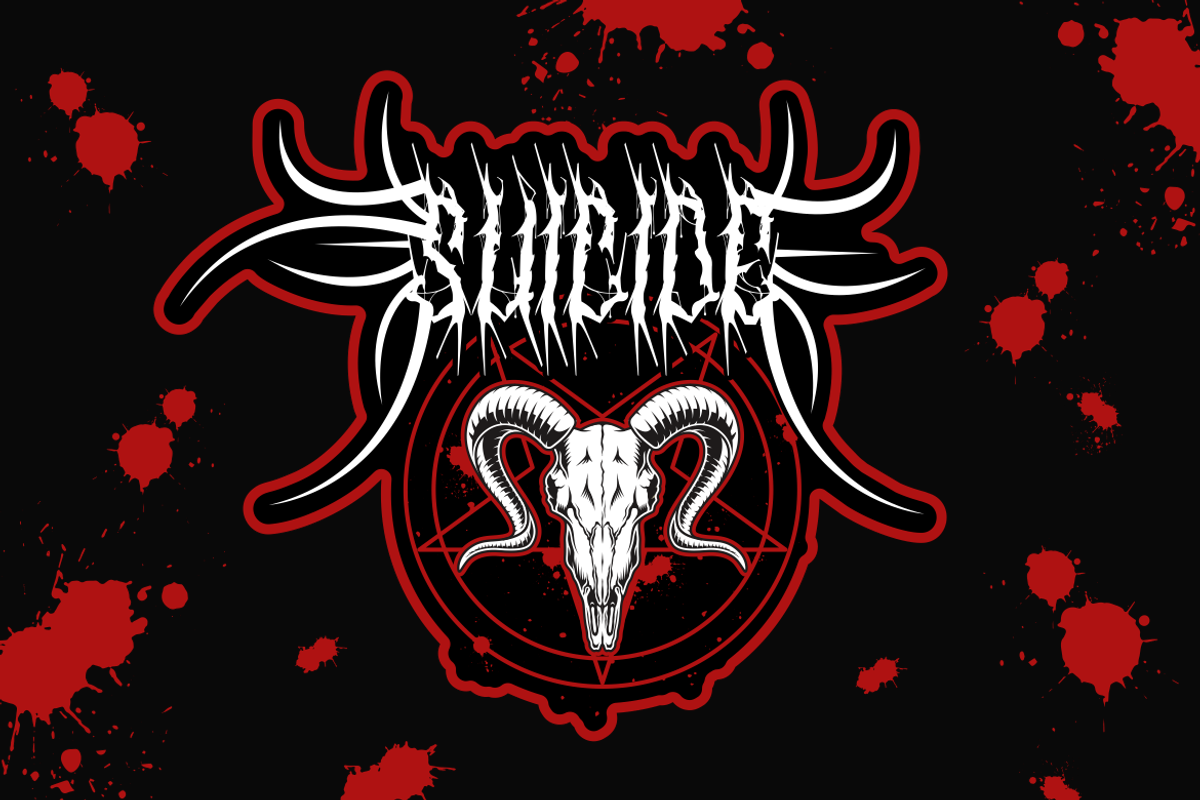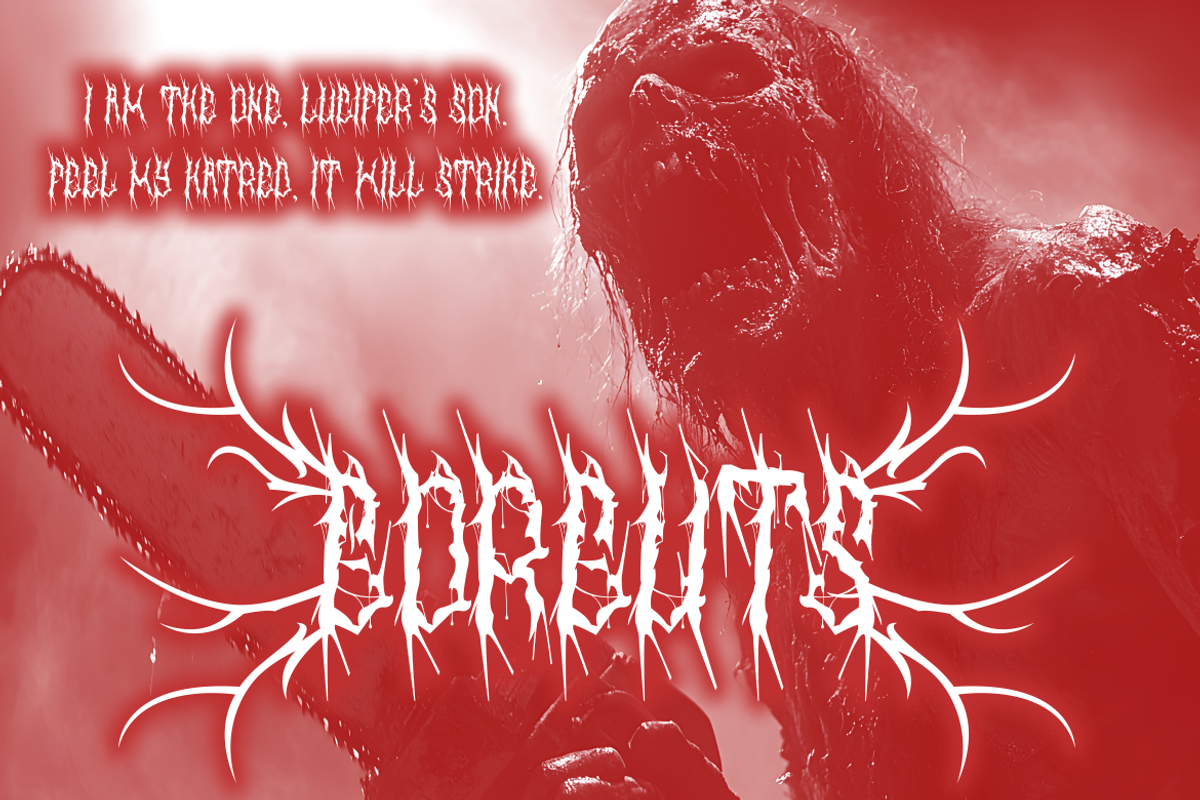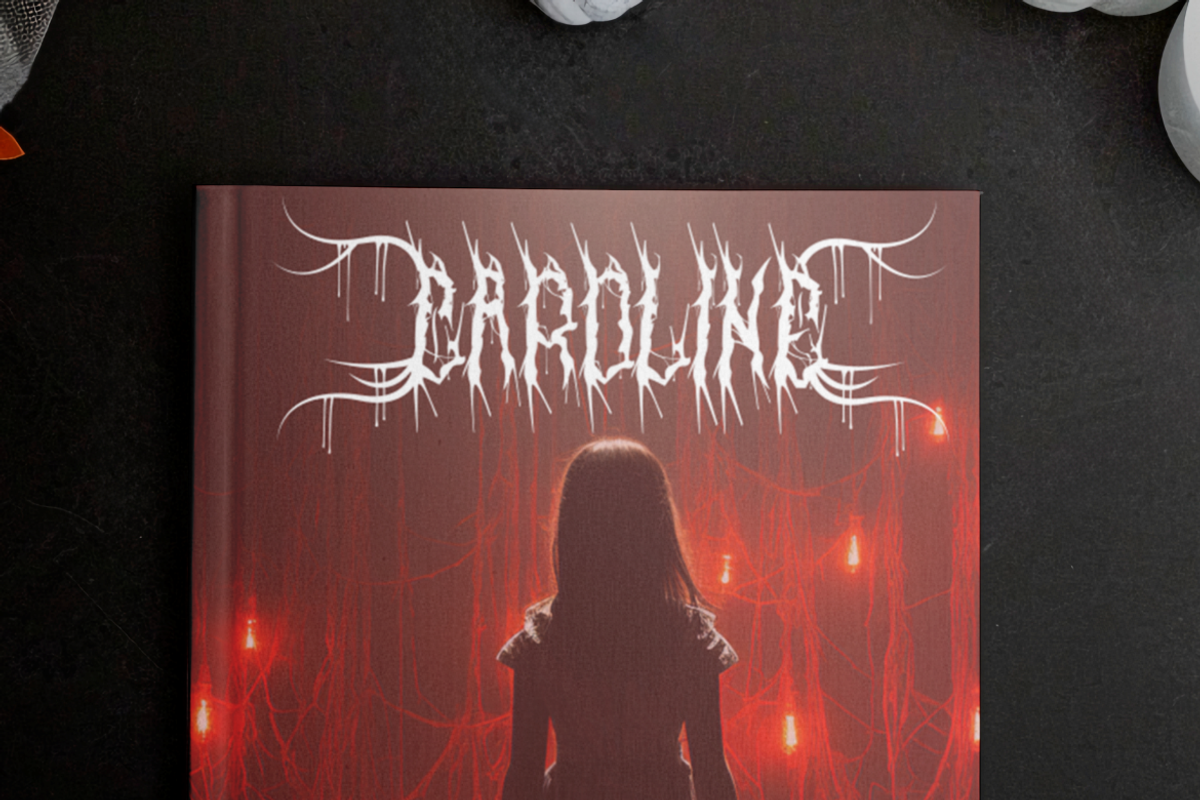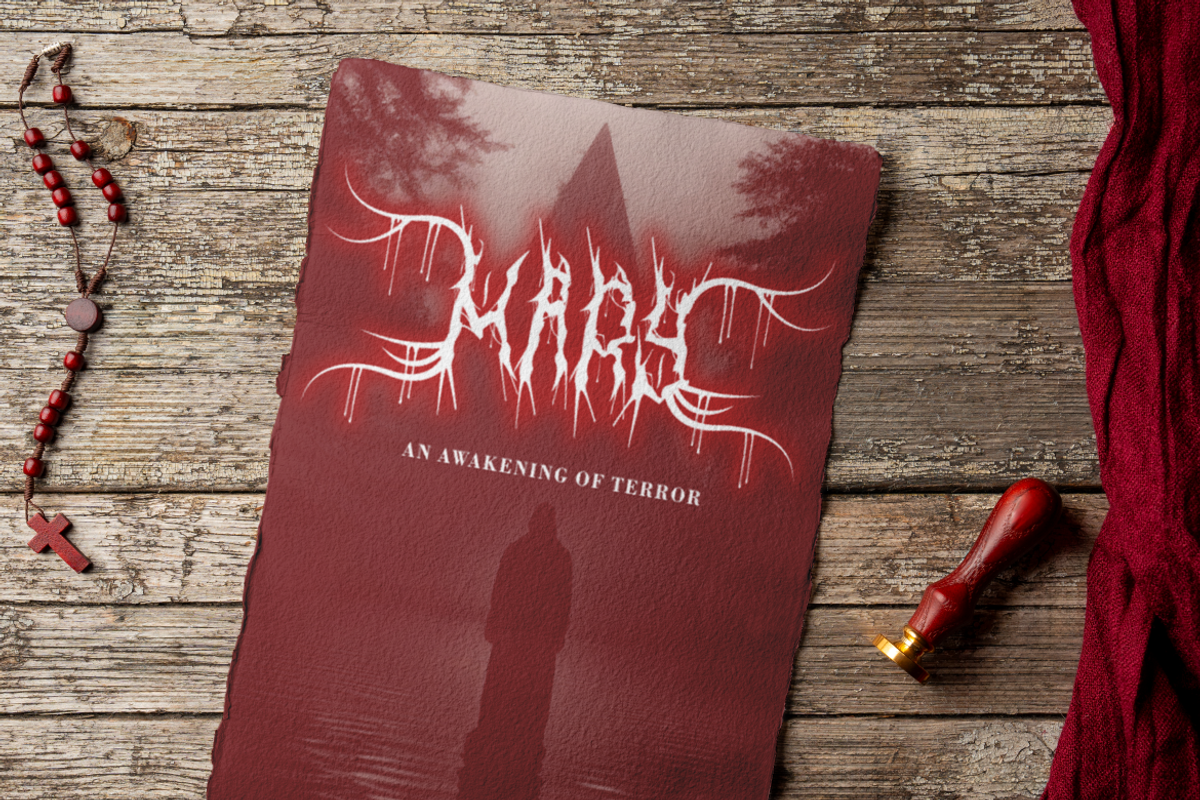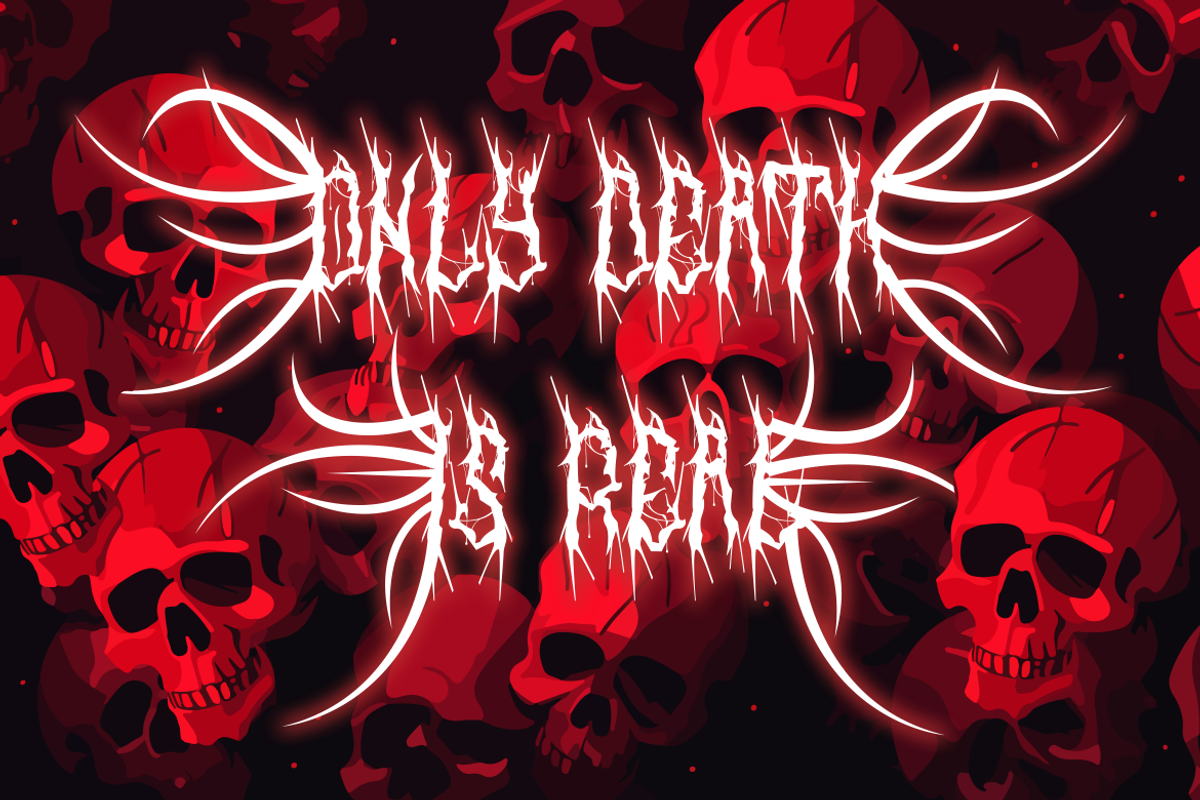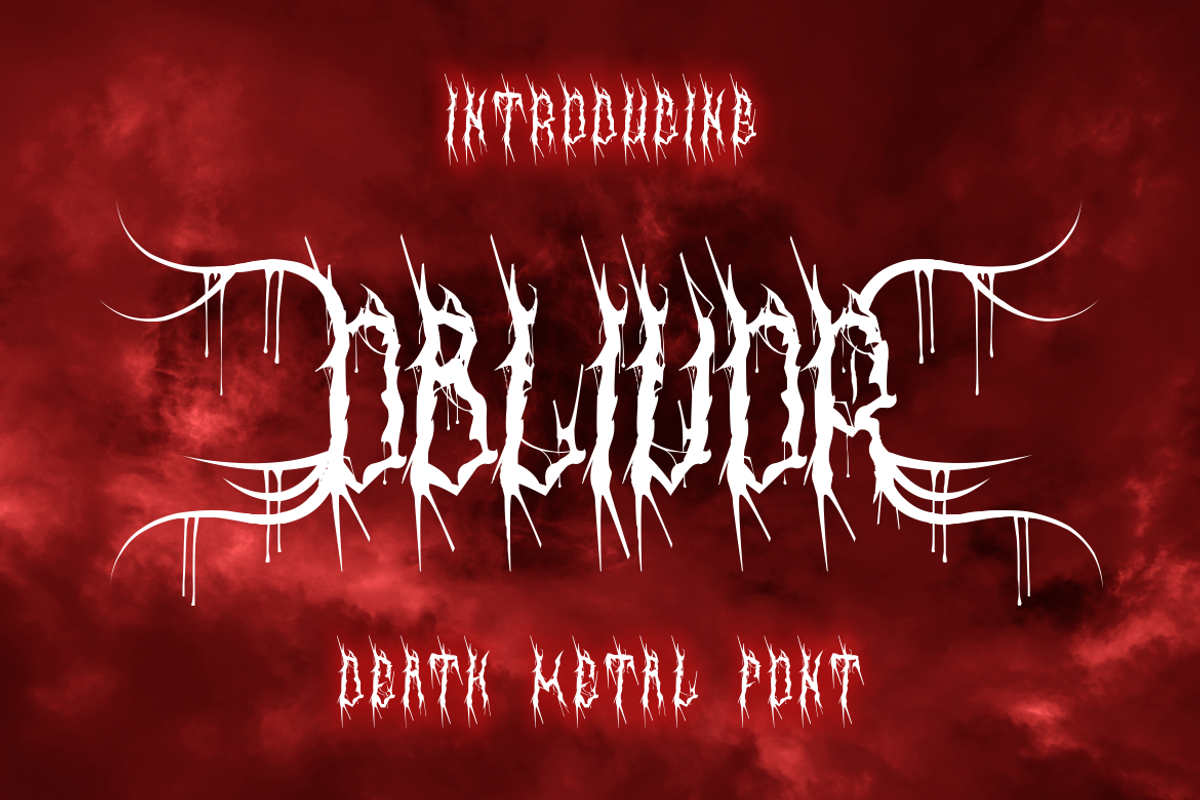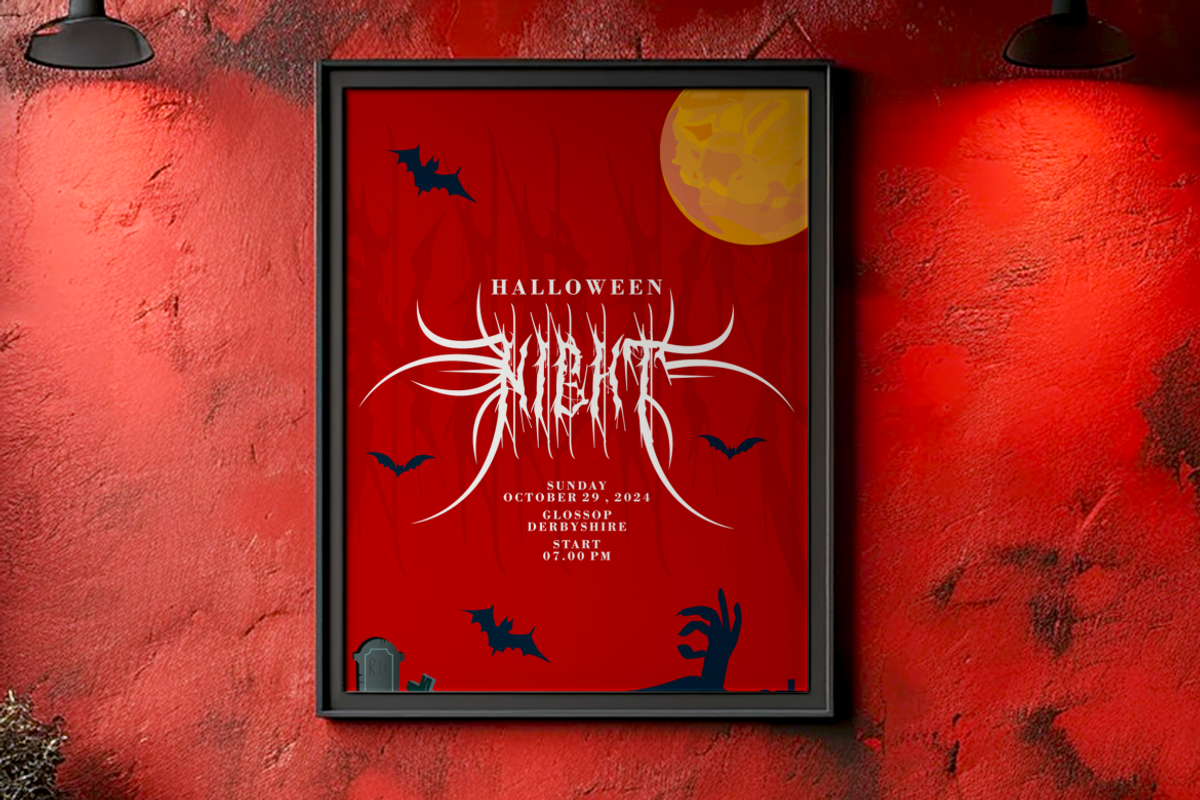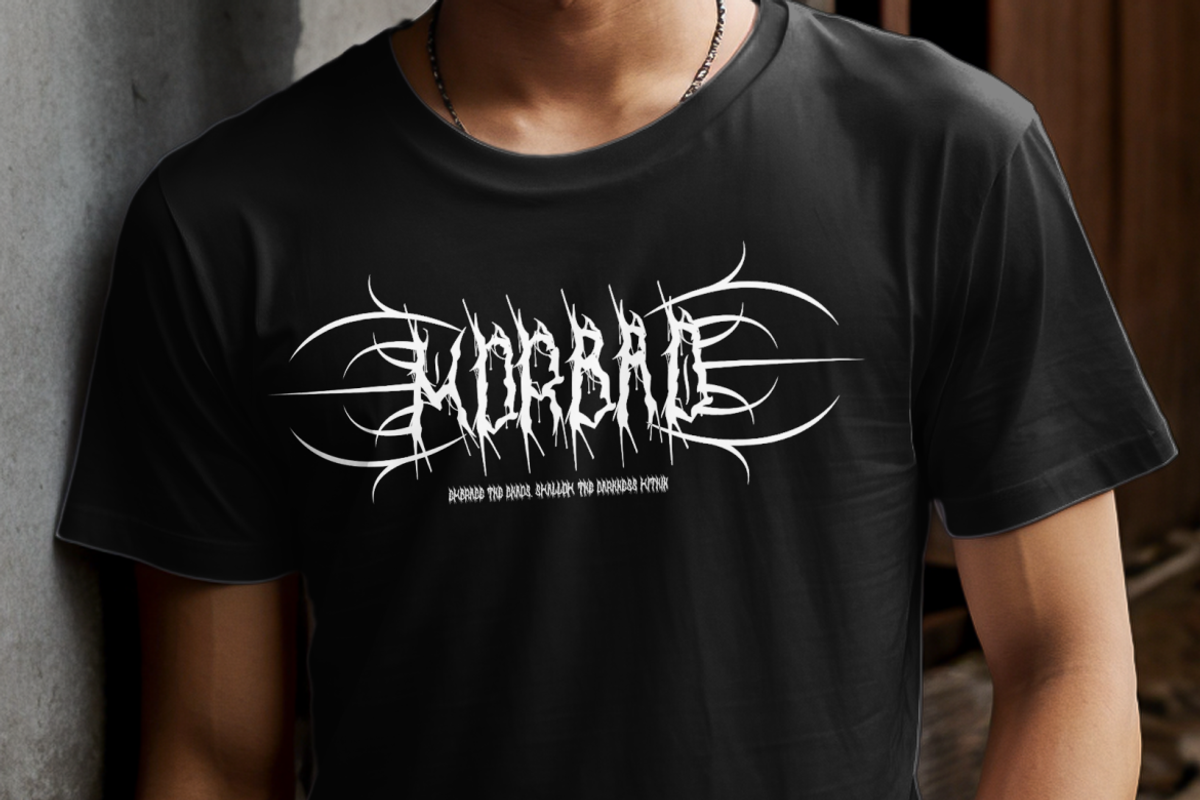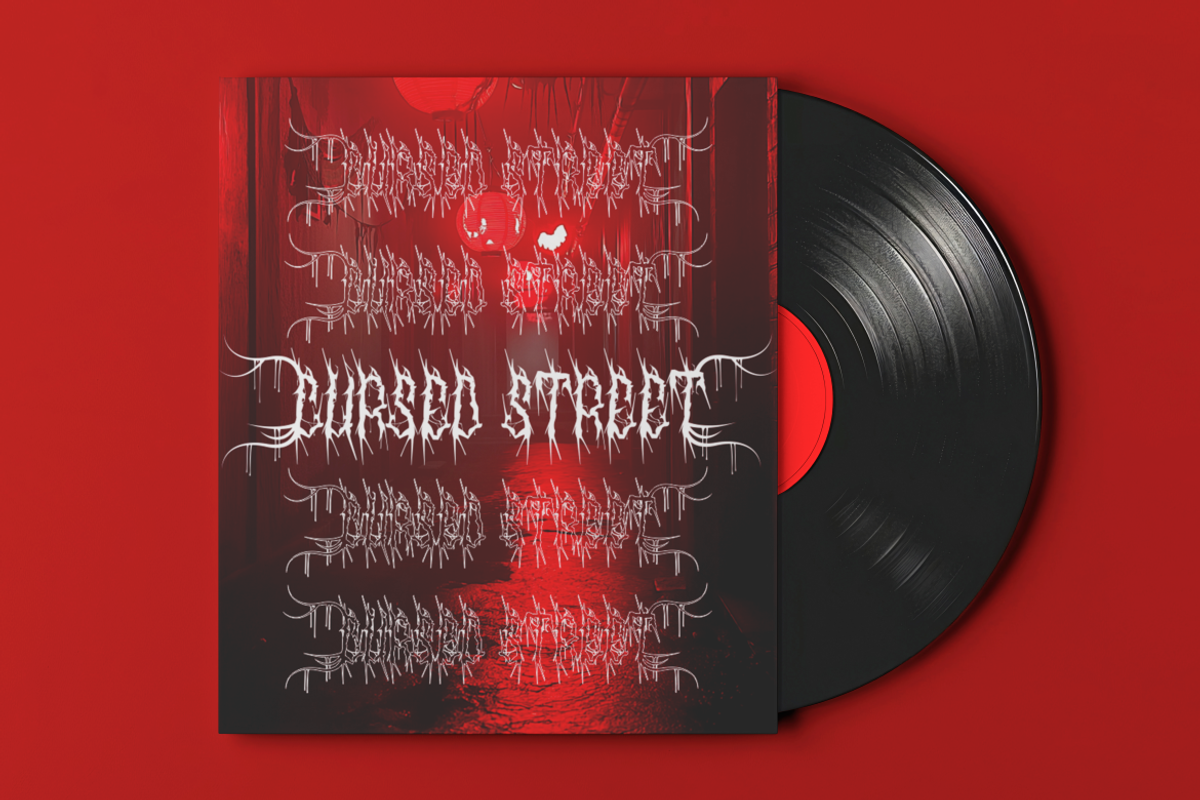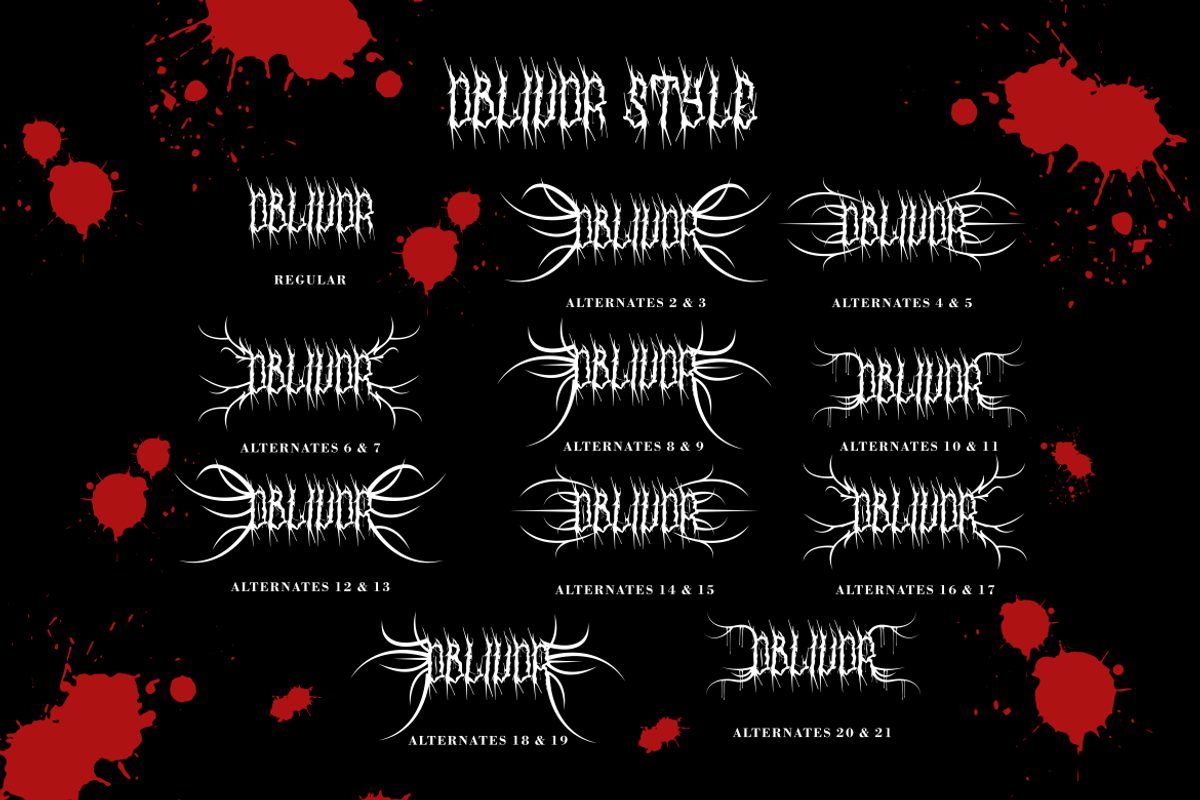
Oblivor - Death Metal Font
Introducing Oblivor - Death Metal Font, a gritty, gothic typeface perfect for designs that demand a dark, rebellious edge. This font captures the essence of death metal with its jagged, distressed strokes and haunting style, ideal for branding in the music industry, particularly for metal, rock, or alternative bands. Oblivor brings an intense, high-impact look to logos, posters, and album covers, invoking the raw energy of underground music and the intensity of the black metal aesthetic. Its unique, twisted letterforms create an atmosphere of chaos and mystery, making it the ideal font for any project aiming to leave a bold impression.
Oblivor isn’t just for the music world; its intense style is versatile enough for various other creative projects. From horror movie titles and grunge-inspired merchandise to themed packaging, this font will add a striking, unforgettable edge. With its gothic vibe, Oblivor is also perfect for use in magazine covers, stickers, or even craft projects with a dark twist. Make your brand stand out in a crowd with this one-of-a-kind death metal font that resonates with fans of extreme music and rebellious style.